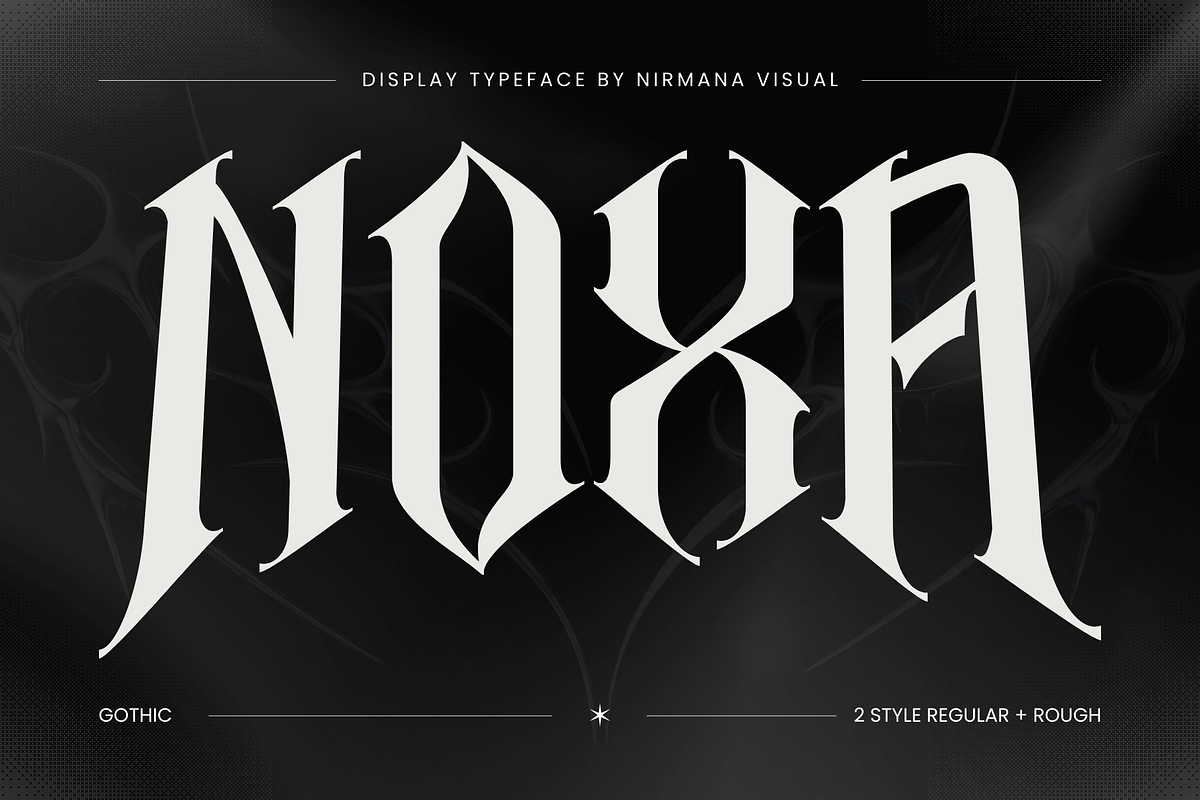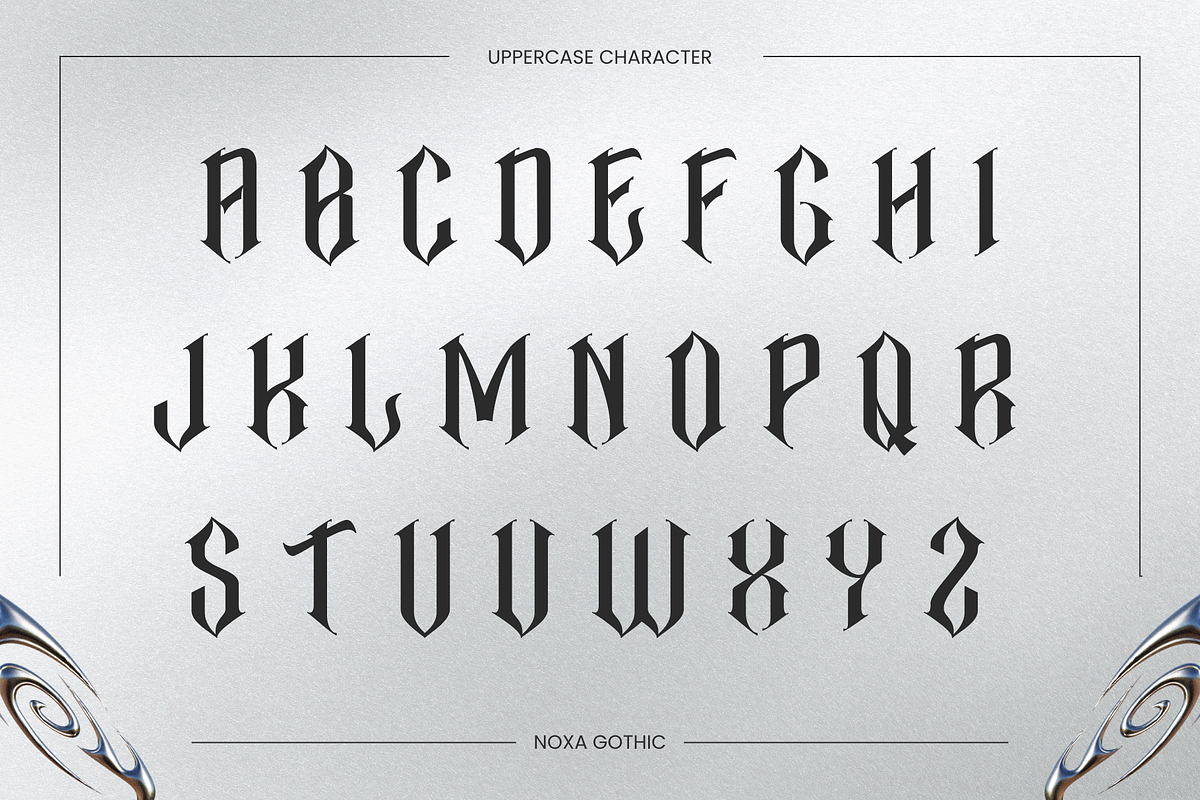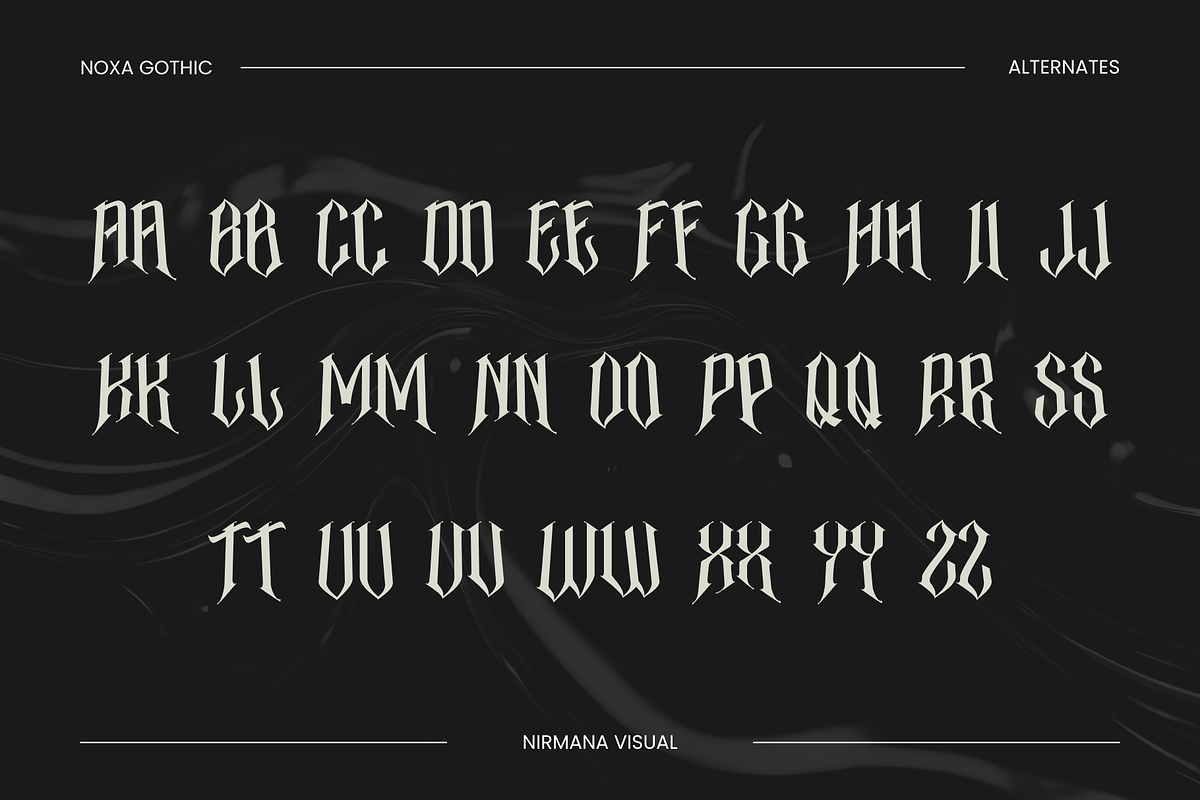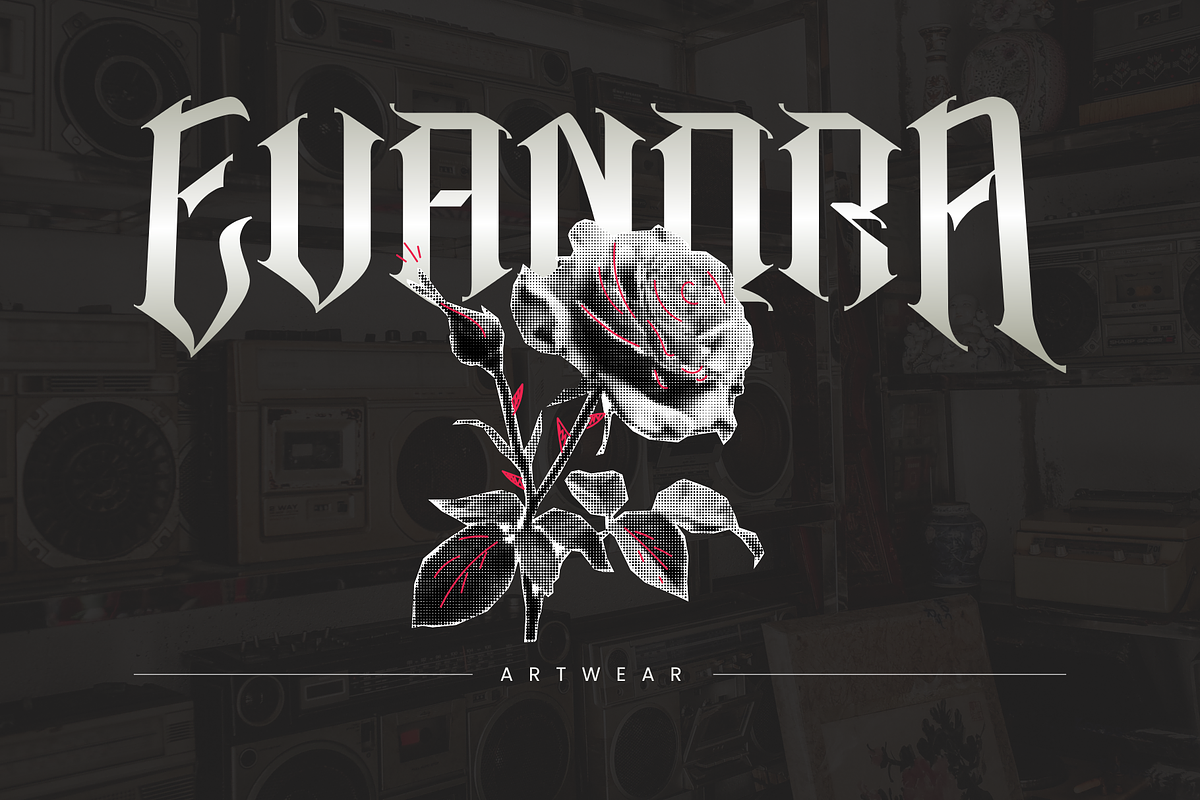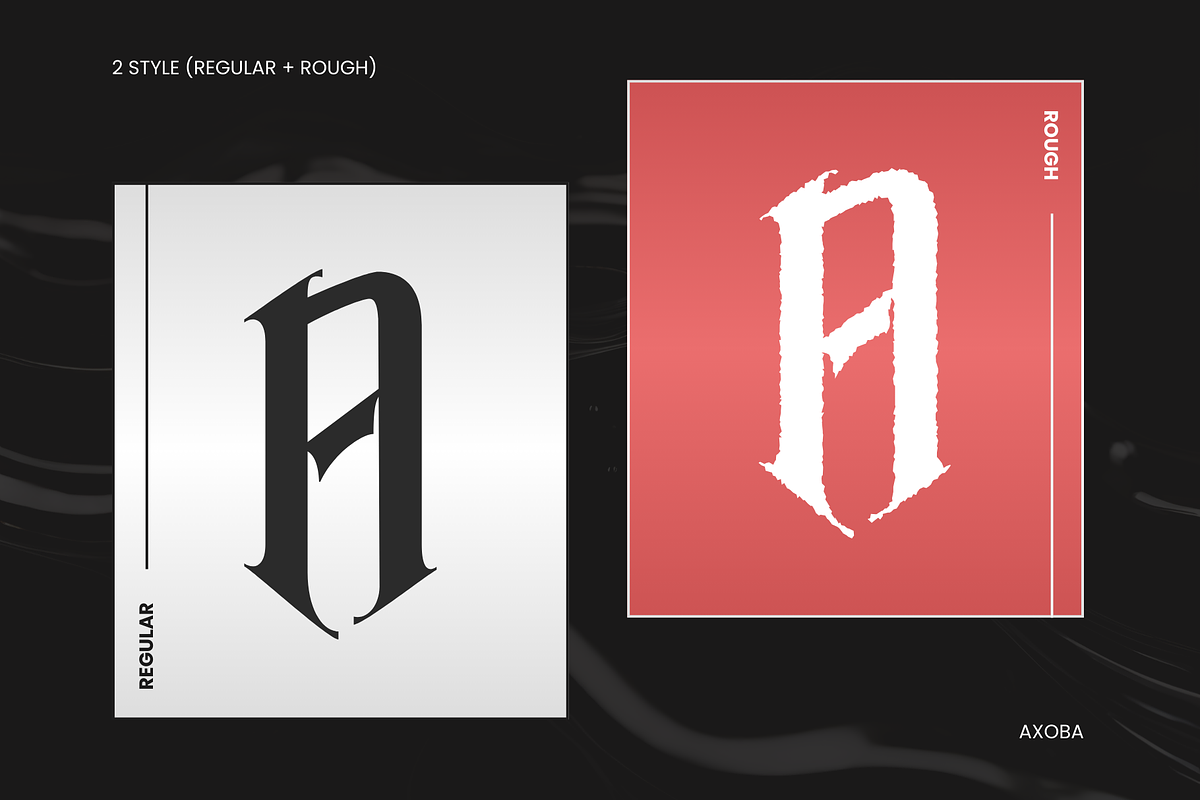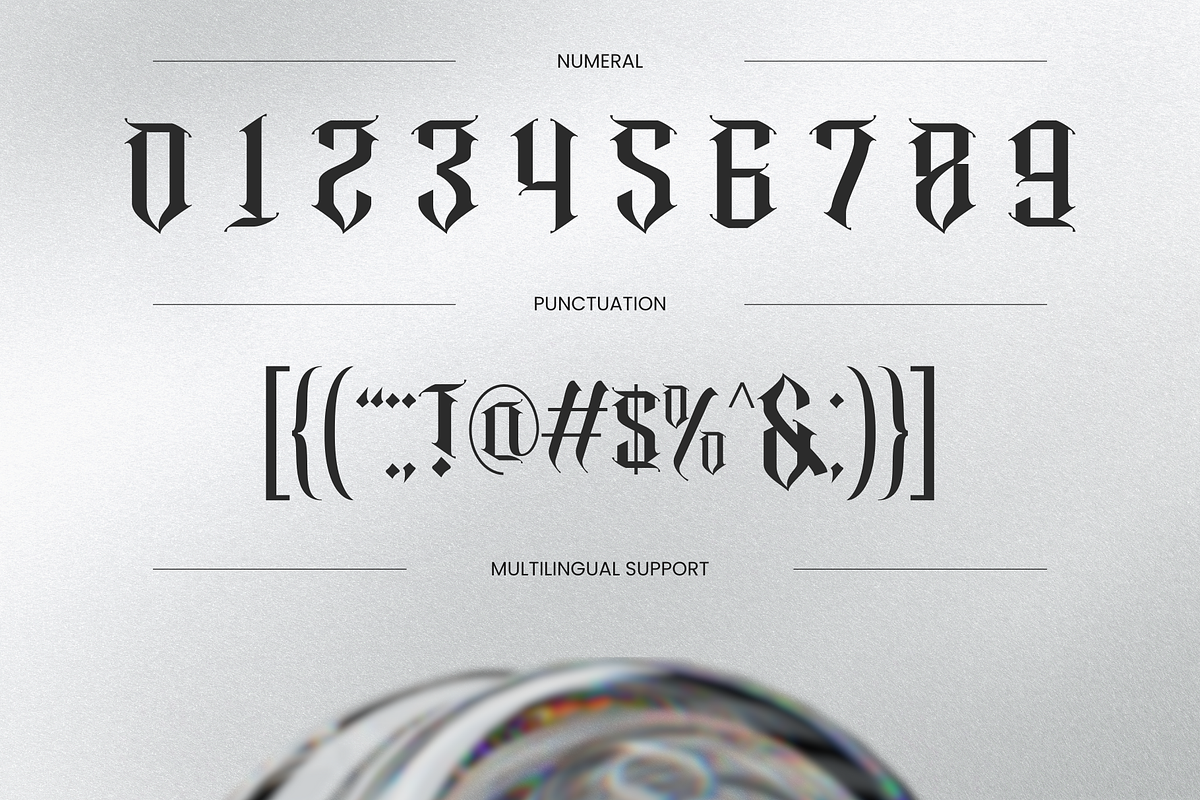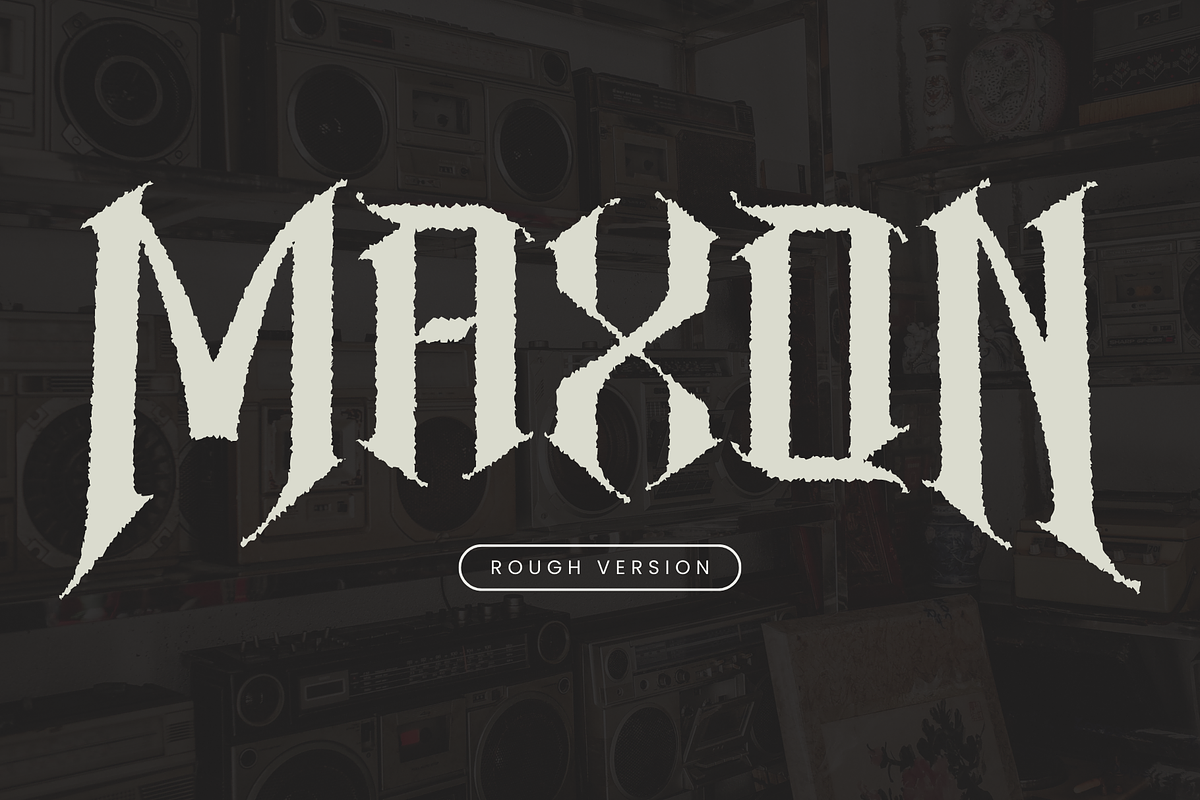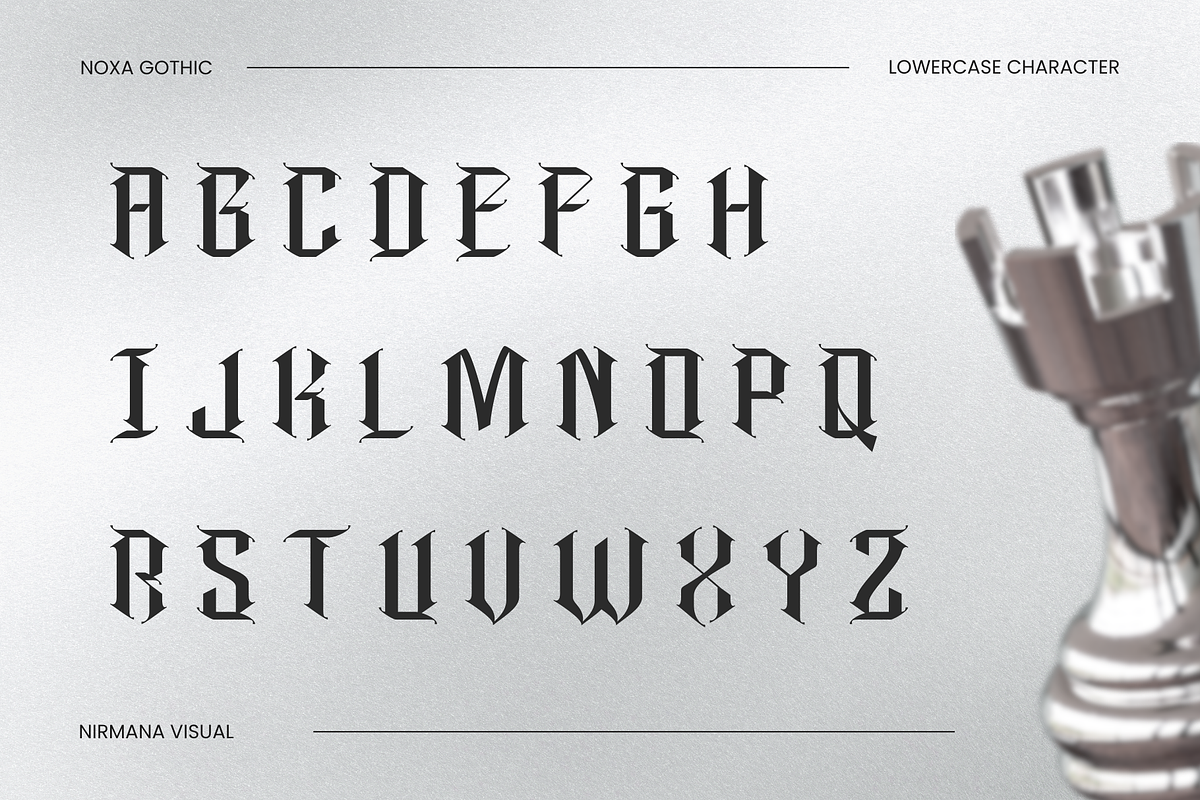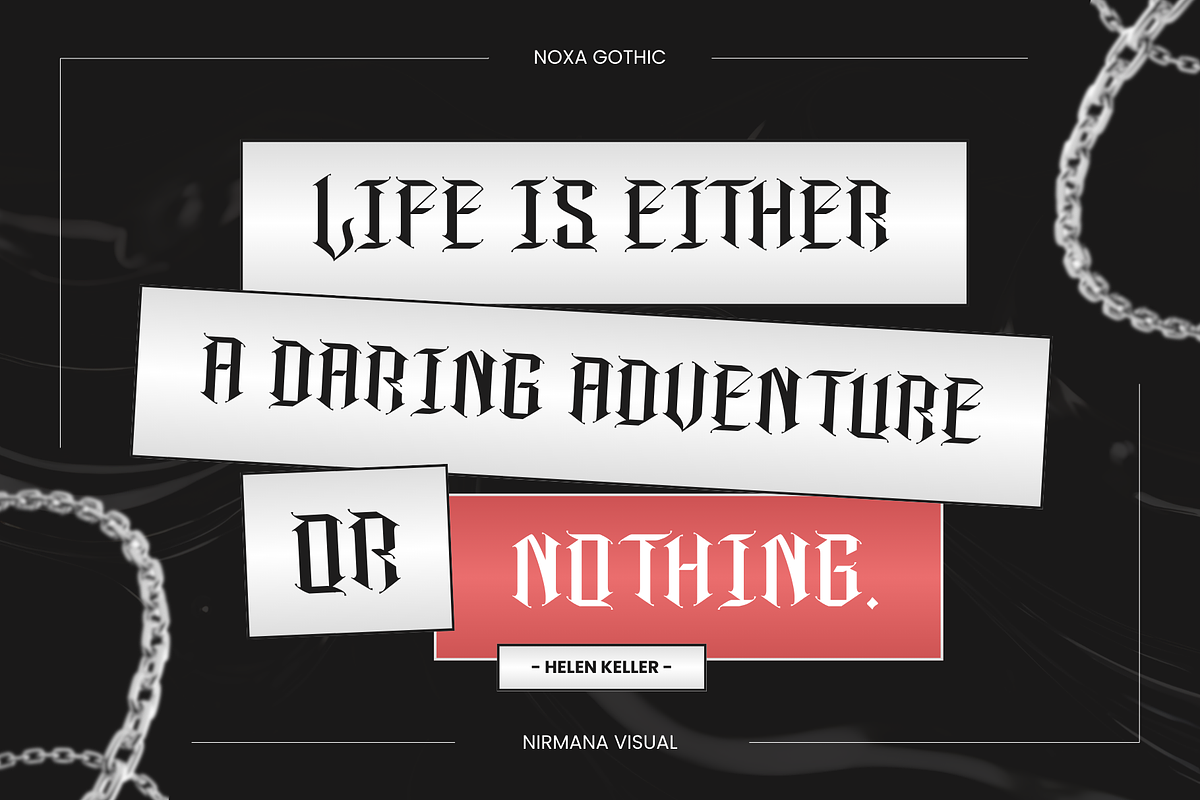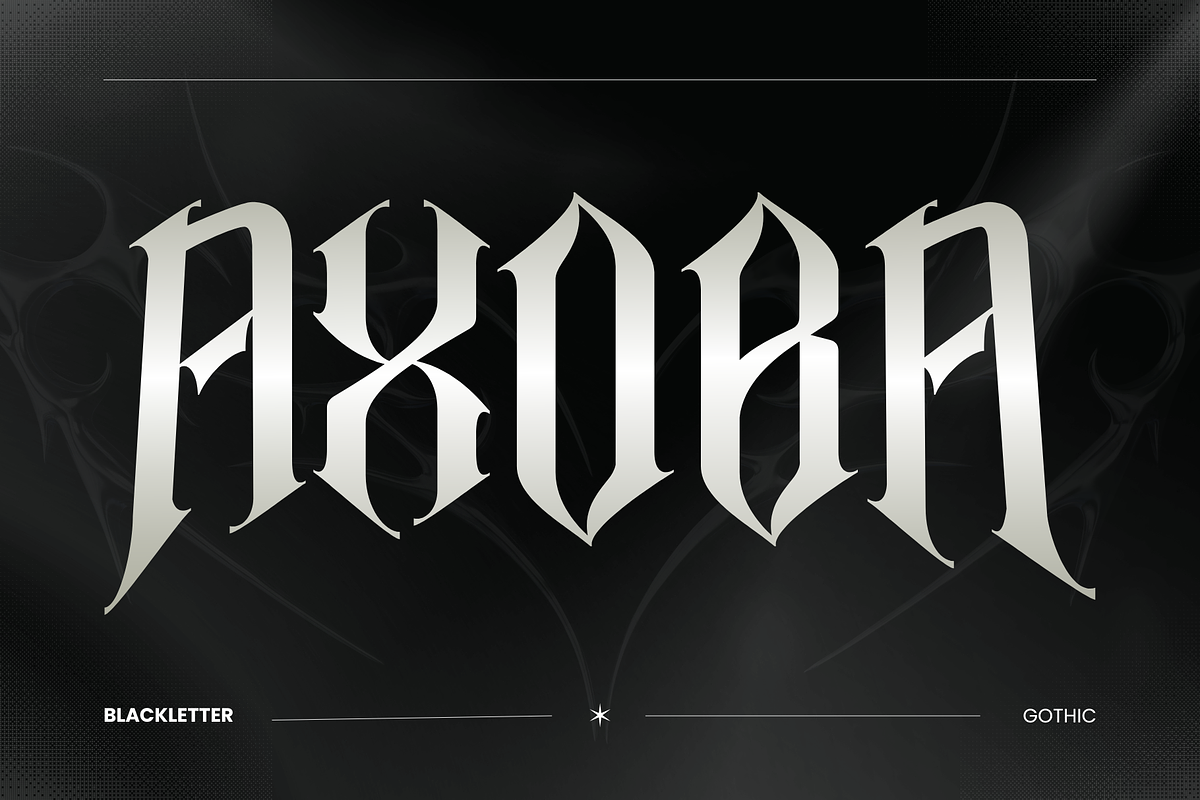
Noxa Gothic - Branding Logo Font
Noxa Gothic offers beautiful typographic harmony for a diversity of design projects, including logos & branding, social media posts, advertisements & product designs.
What you get : In Two Font Styles : Regular & Rough